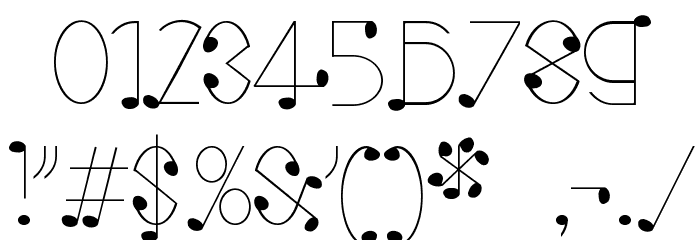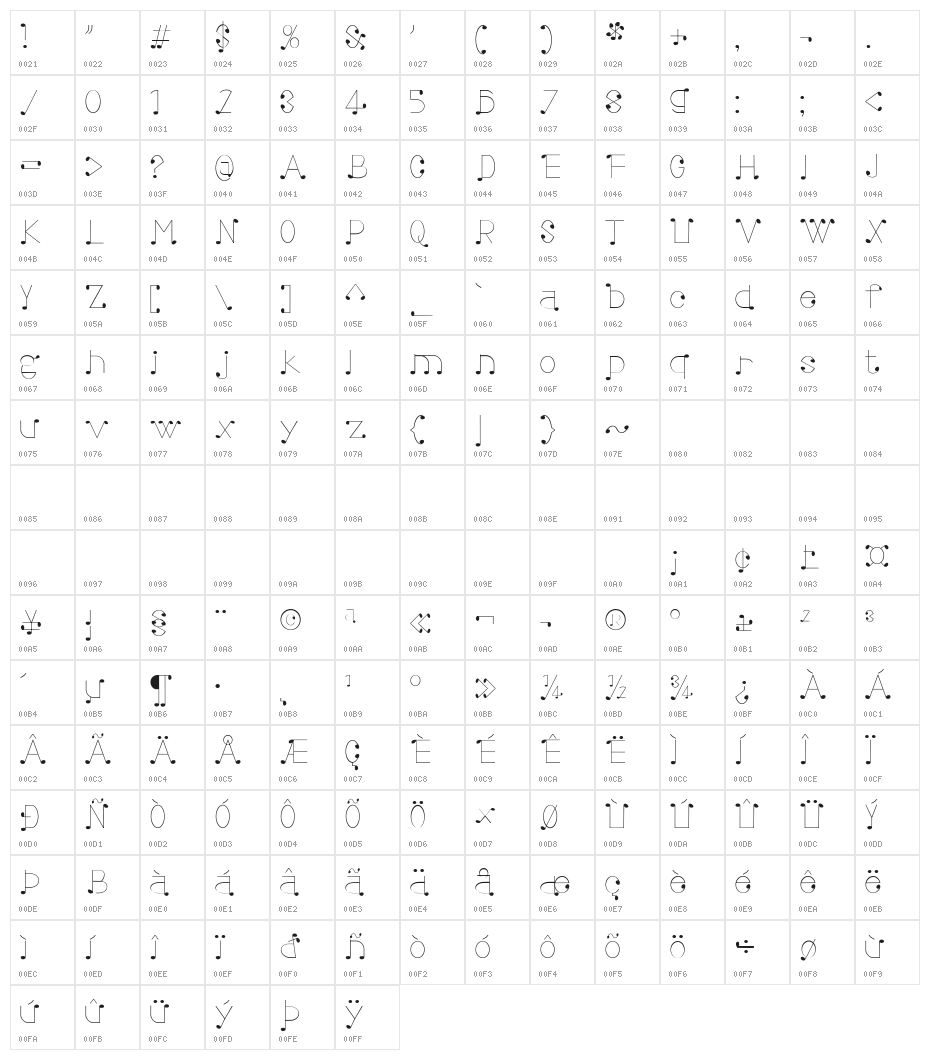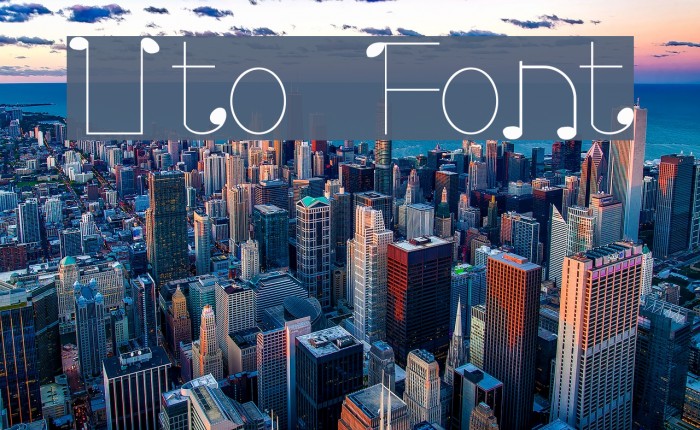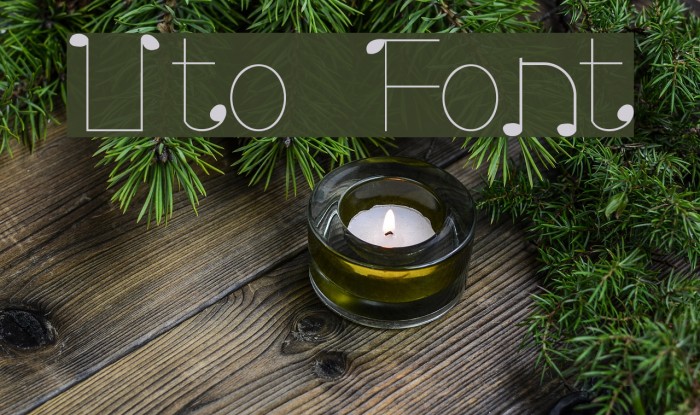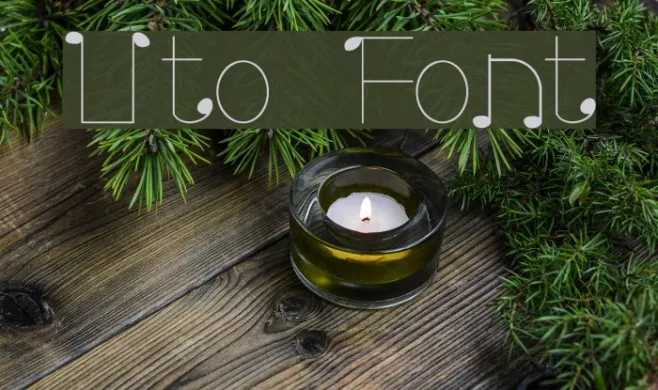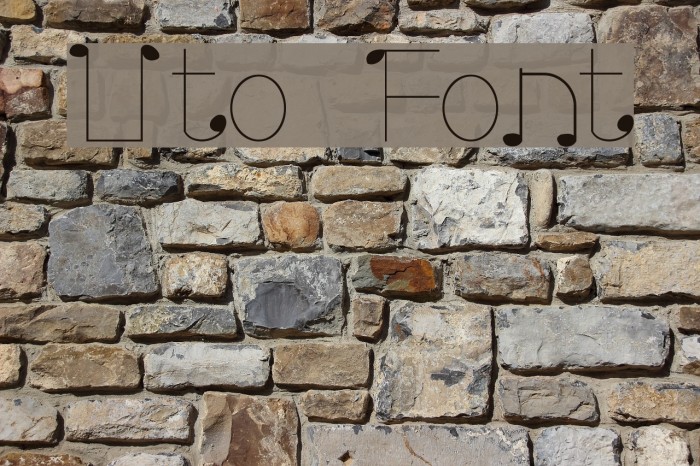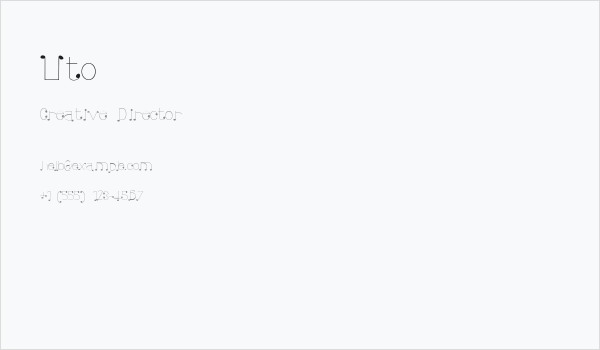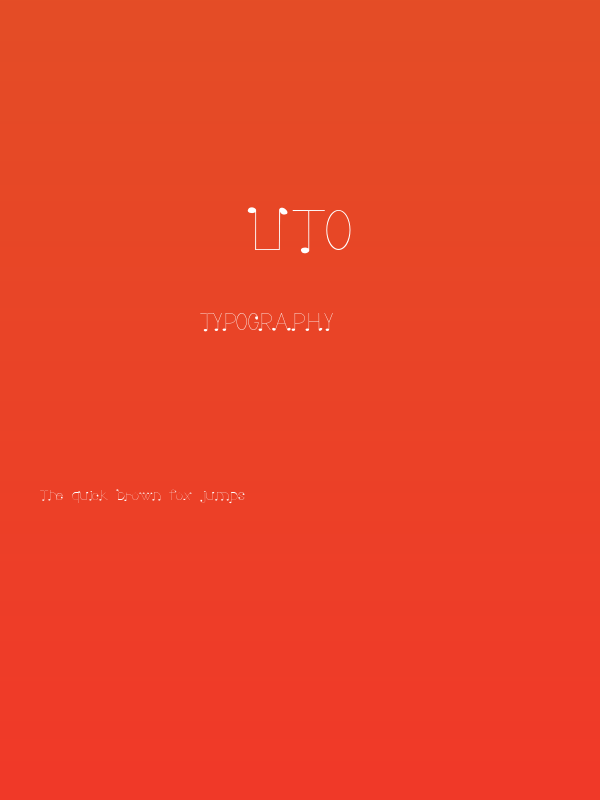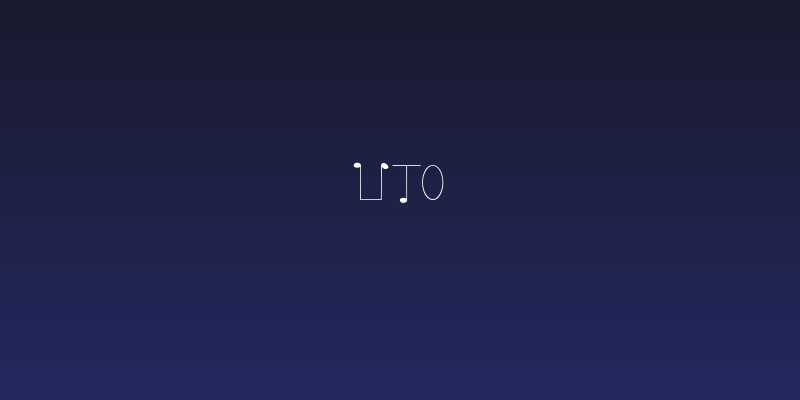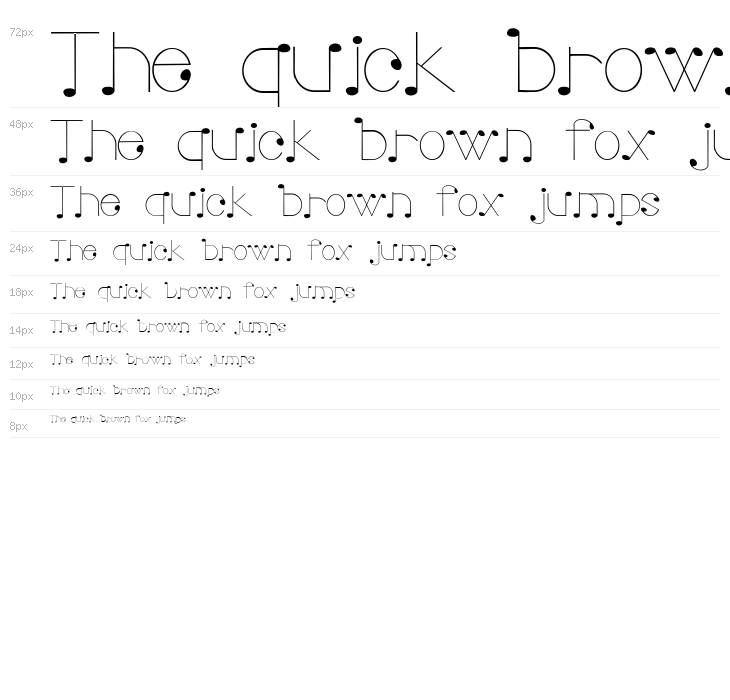
Uto Font
Uto Description
This font features a unique and playful design, characterized by its thin, linear strokes and distinctive dot embellishments at the ends of each character. The letters are primarily geometric, with a modern and minimalist aesthetic that incorporates circular and straight elements. The uppercase and lowercase letters maintain a consistent style, with the dots adding a whimsical touch. Numbers and special characters follow the same design principles, ensuring a cohesive look across all glyphs. This font's creative approach makes it stand out, offering a fresh take on traditional letterforms.
| Proposed Projects | Ideal for creative projects such as children's books, playful branding, modern art posters, or any design requiring a whimsical and unique typeface. |